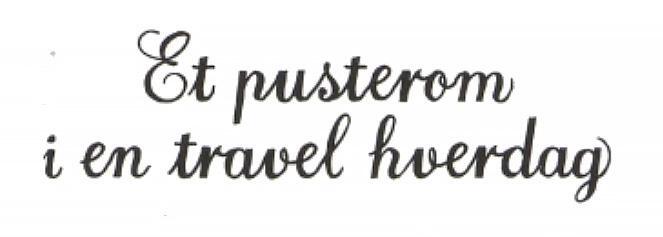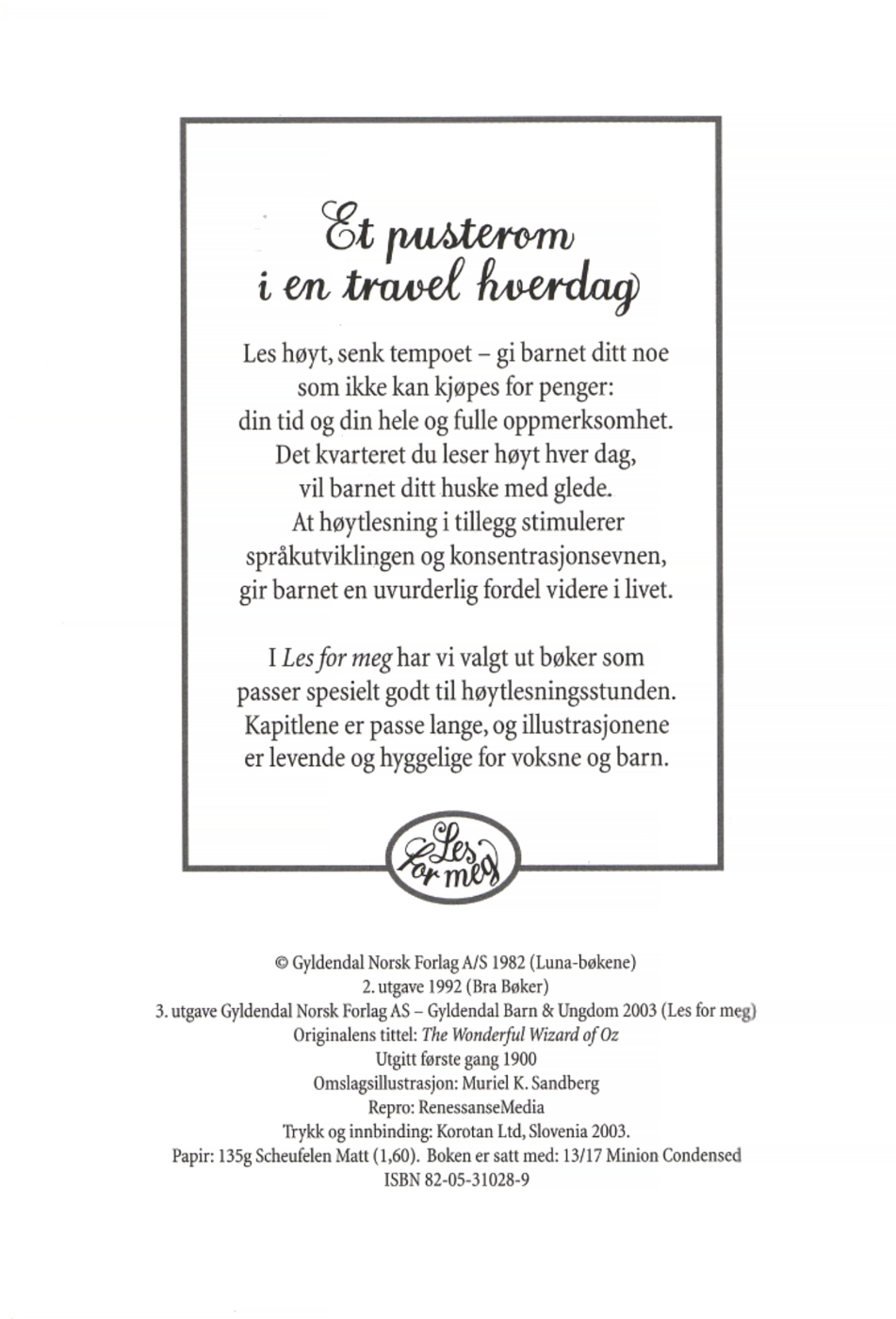
I want to identify this nice handwritten style font (if it is a font, for me very hard to find) from the book The wizard of Oz in a Norwegian translation.
Here are info about the book and some font samples:
The font appears only on the front cover page, page 5, 6 and the last page (back cover).
Title: "Trollmannen fra Oz"
Papir: 135g Scheufelen Matt (1,60). Boken er satt med: 13/17 Minion Condensed
Here is a sample of the font I want to find:
Et pusterom i en travel hverdag
I found someting quite close, but the p, the s and the r has not been quite there all together. Also the italic skew have been way too much in every case. (Should have been nothing?)
At first "English157 BT" looked like a promising candidate, but now it seems more like a lonely blind gate. I especially dislike the much more italic look. (Any trick to de-italic a font?)